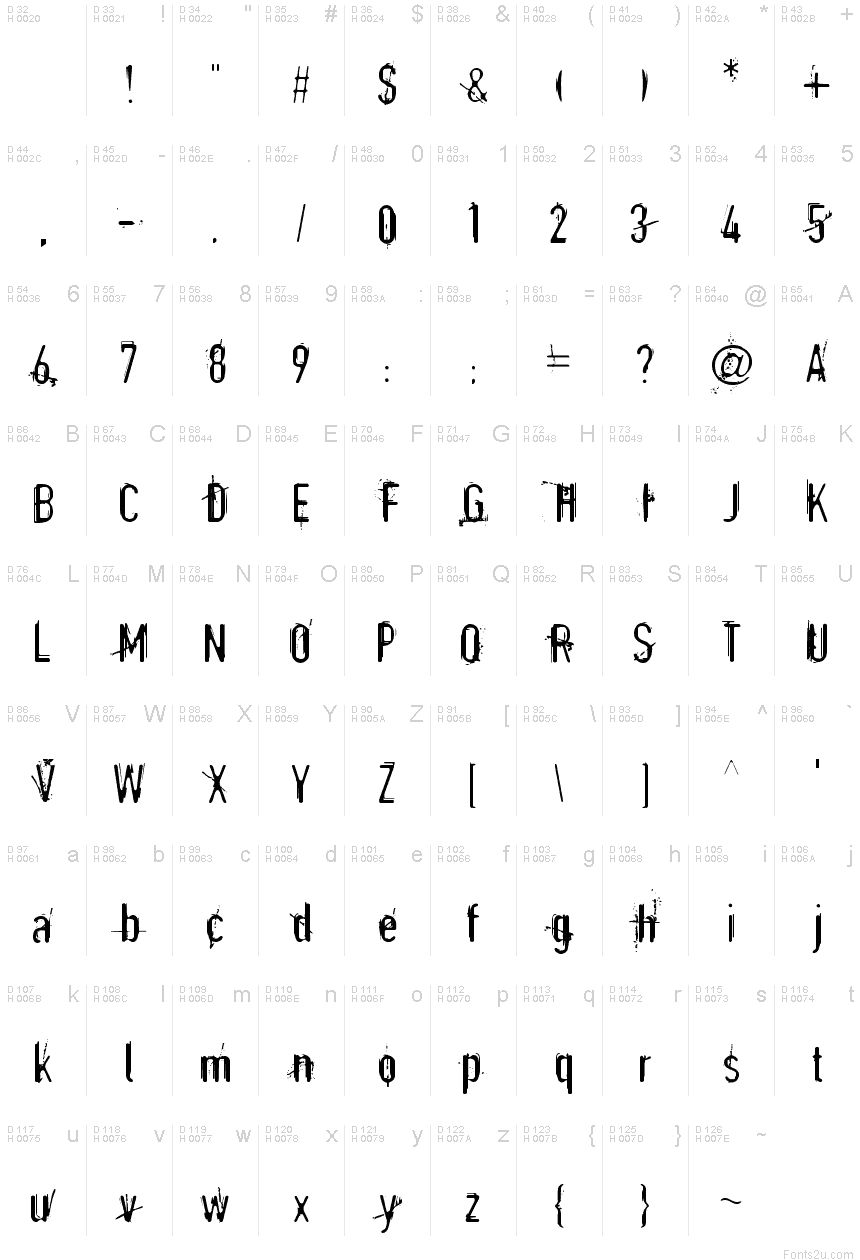
Astonished
Astonished font by Eduardo Recife splatters a condensed sans serif skeleton with inky streaks, drips, and rough edges for an instantly worn, chaotic look. This free font feels like text stamped on a wall or dragged through wet paint, giving headlines a raw, urban energy that’s hard to ignore.
Astonished is ideal for album covers, gig posters, horror titles, zines, extreme sports branding, streetwear labels, and experimental logos where a clean typeface would feel too polite. This free font works best at larger sizes, and it pairs nicely with a simple geometric sans or classic grotesque set in small supporting text.